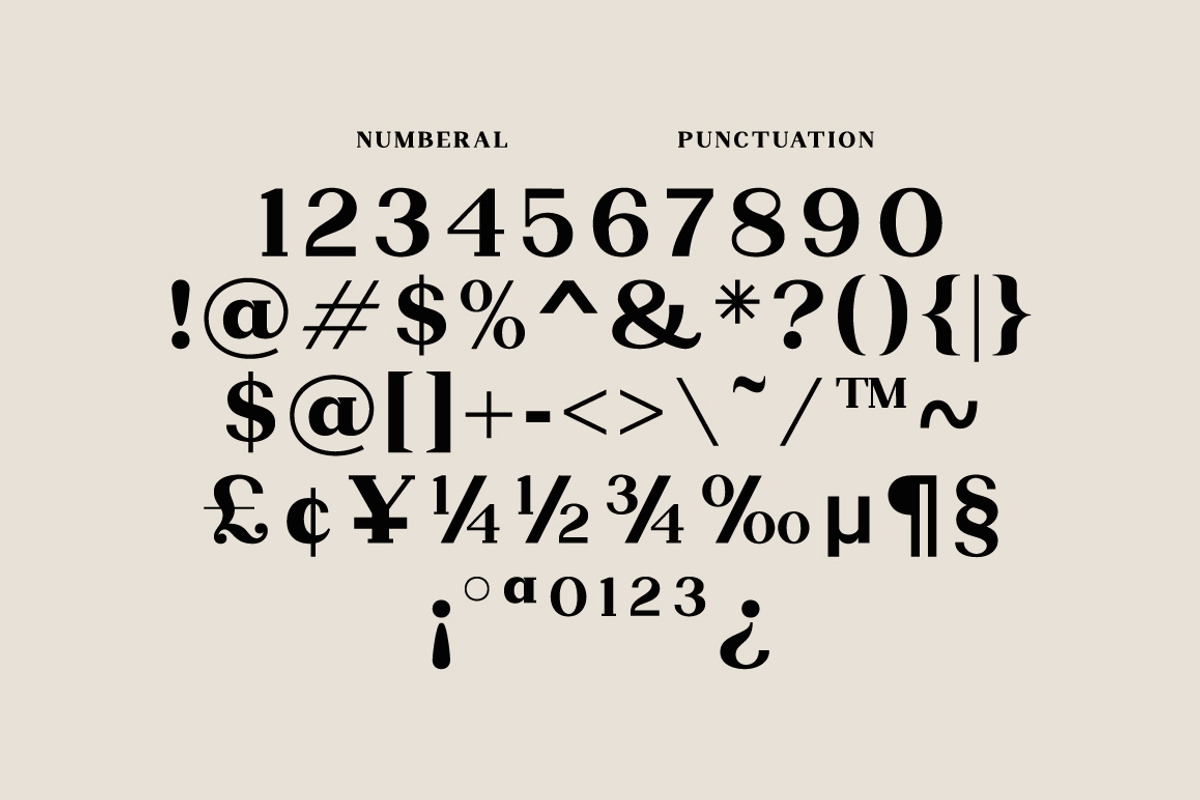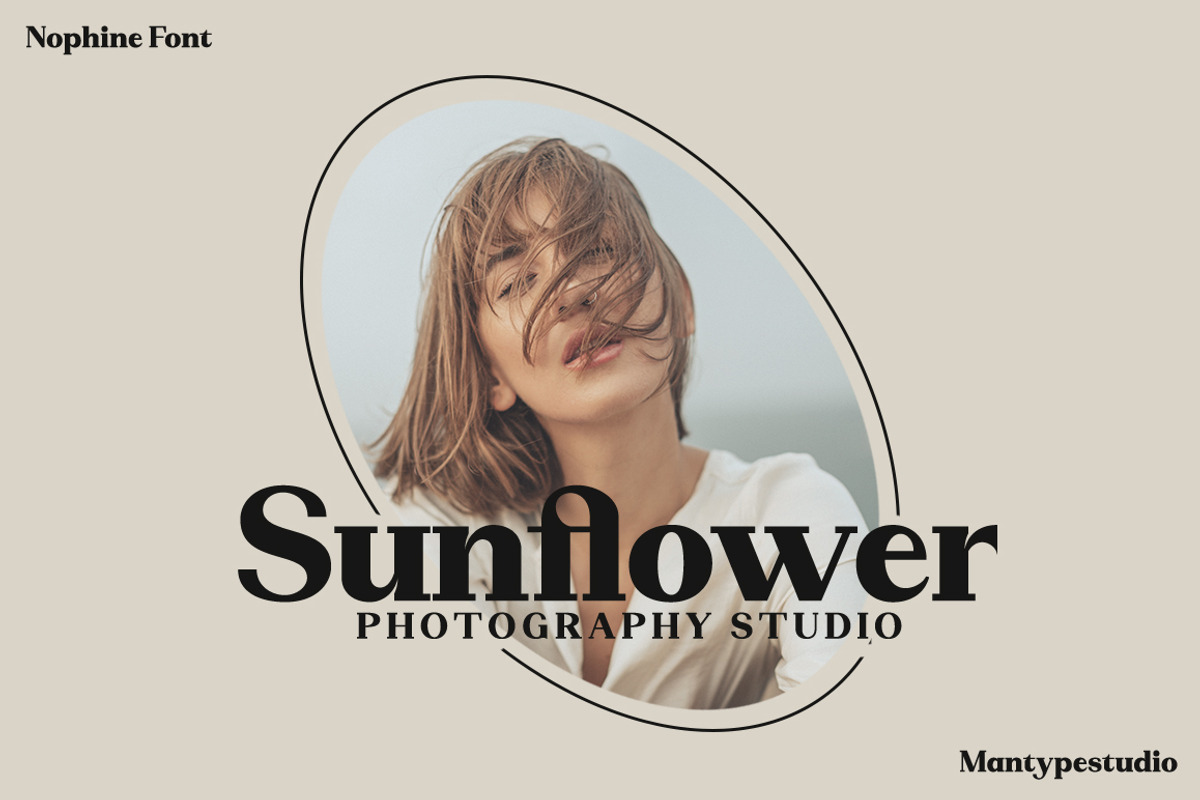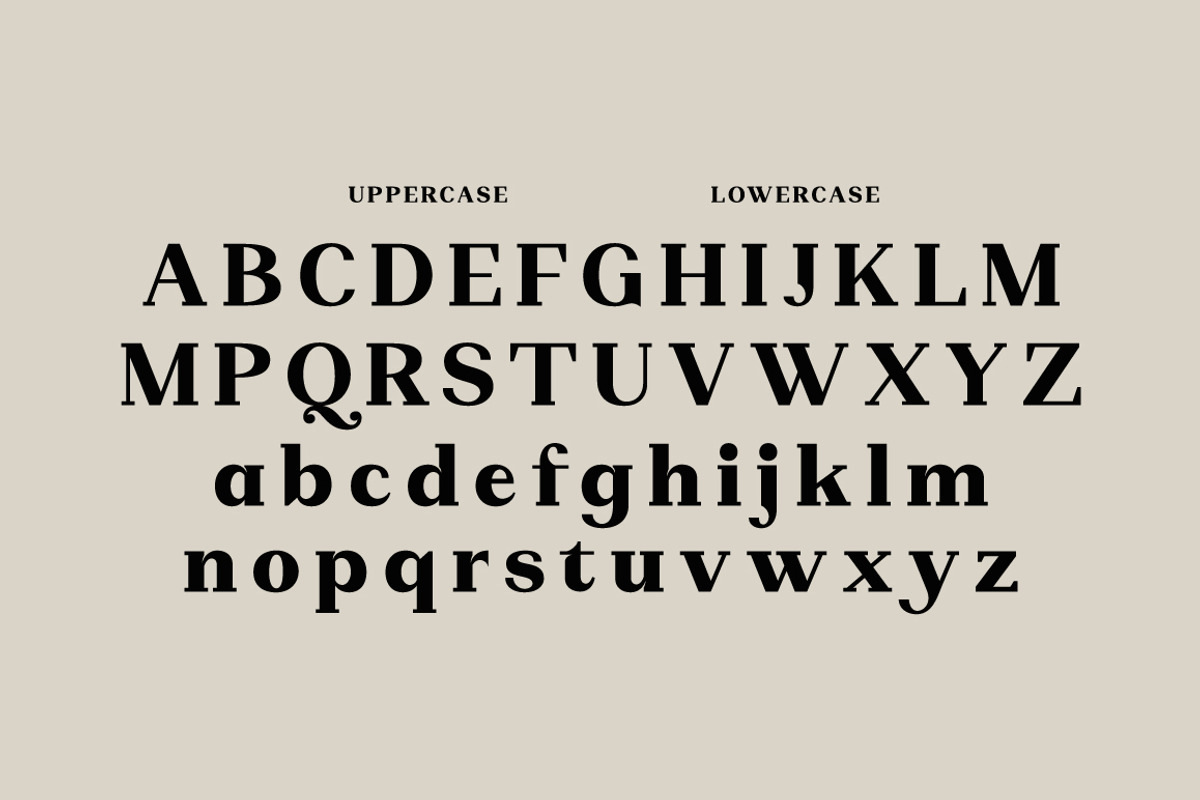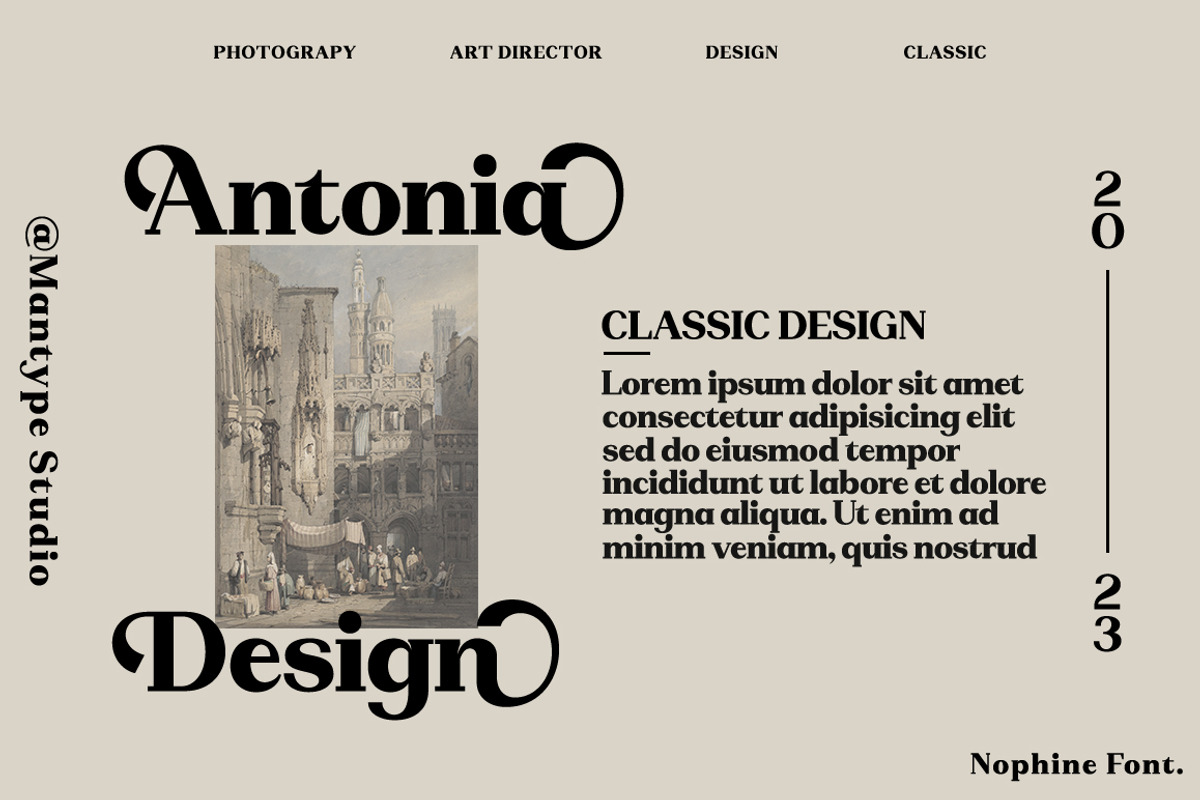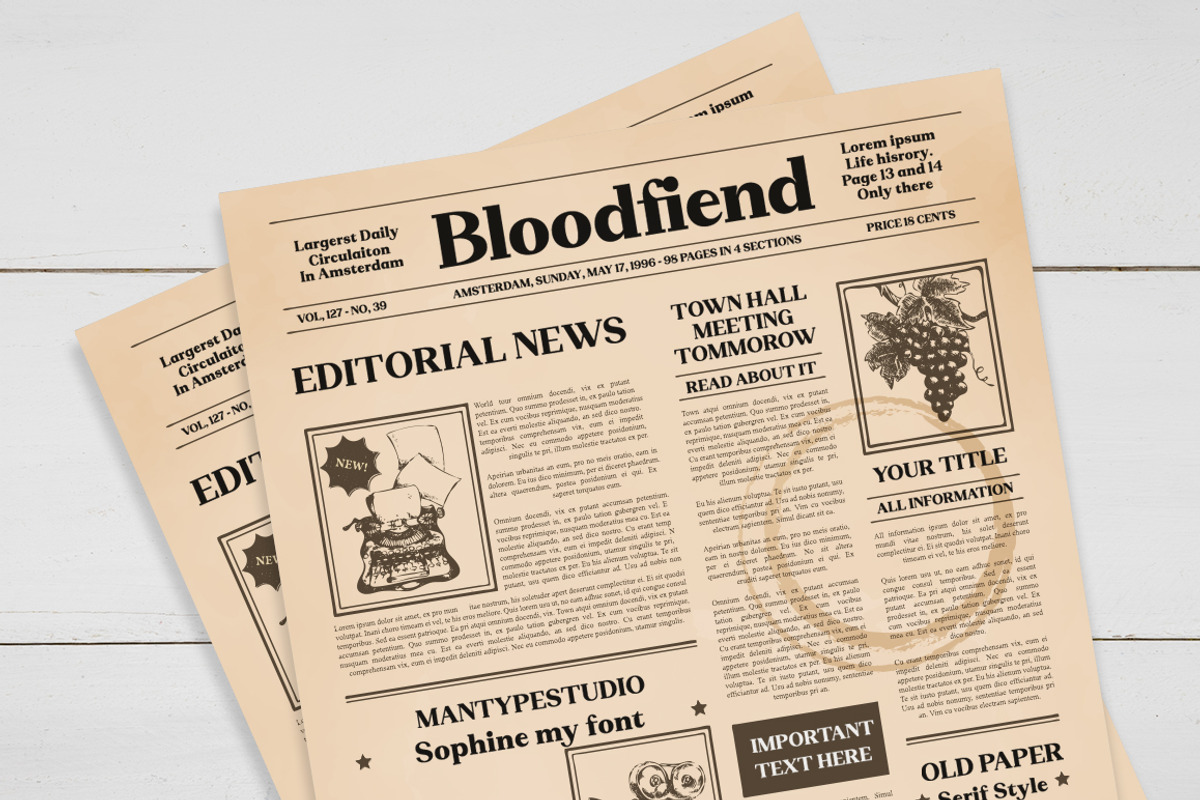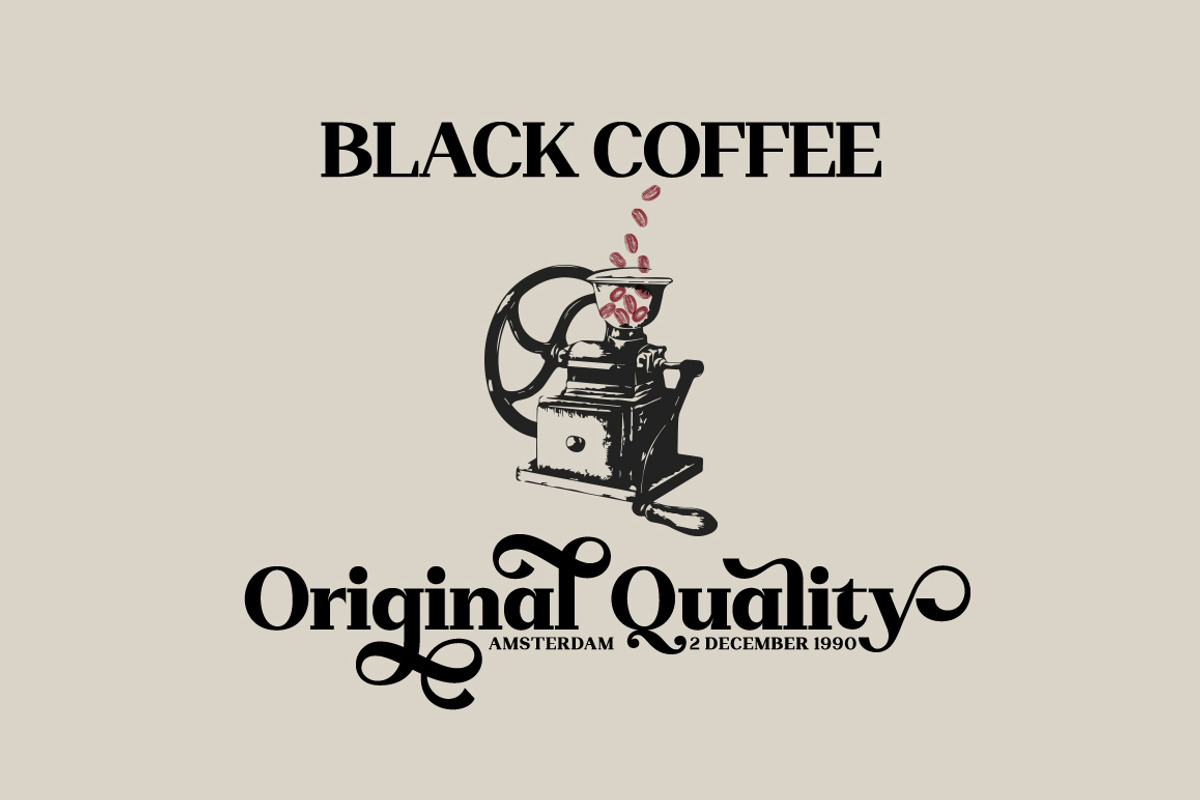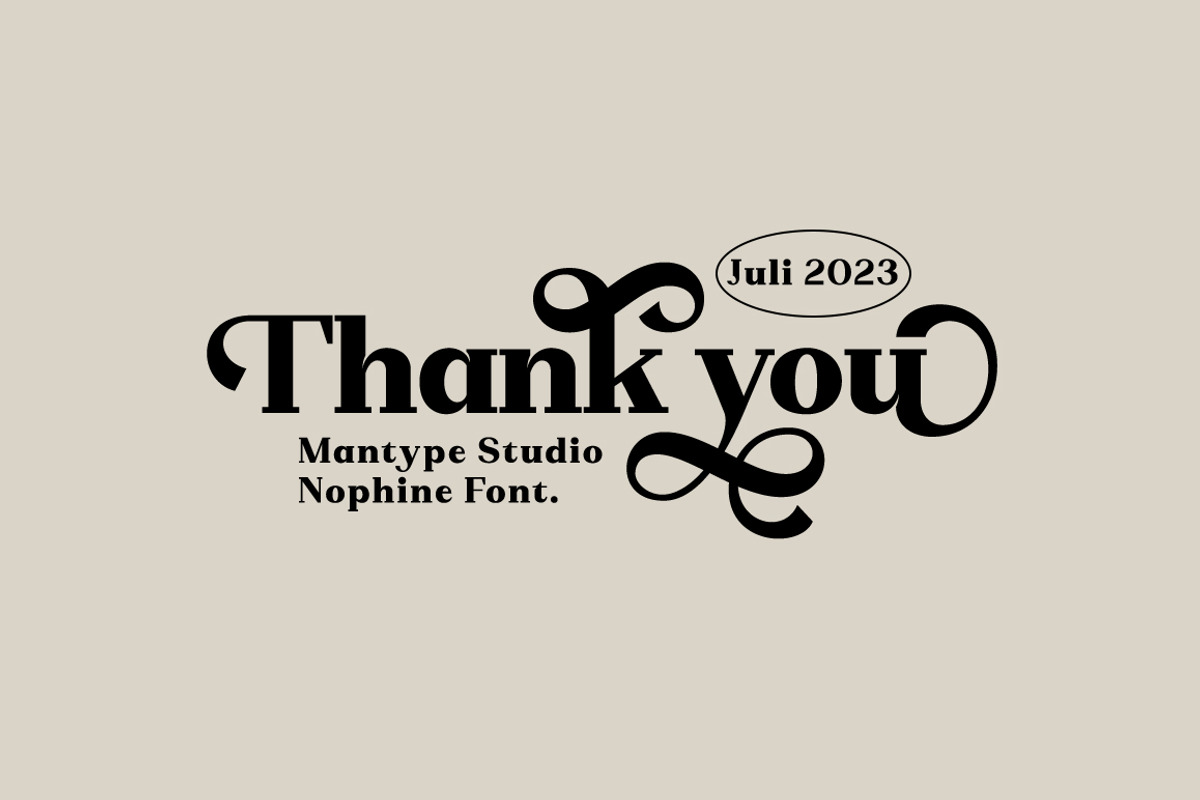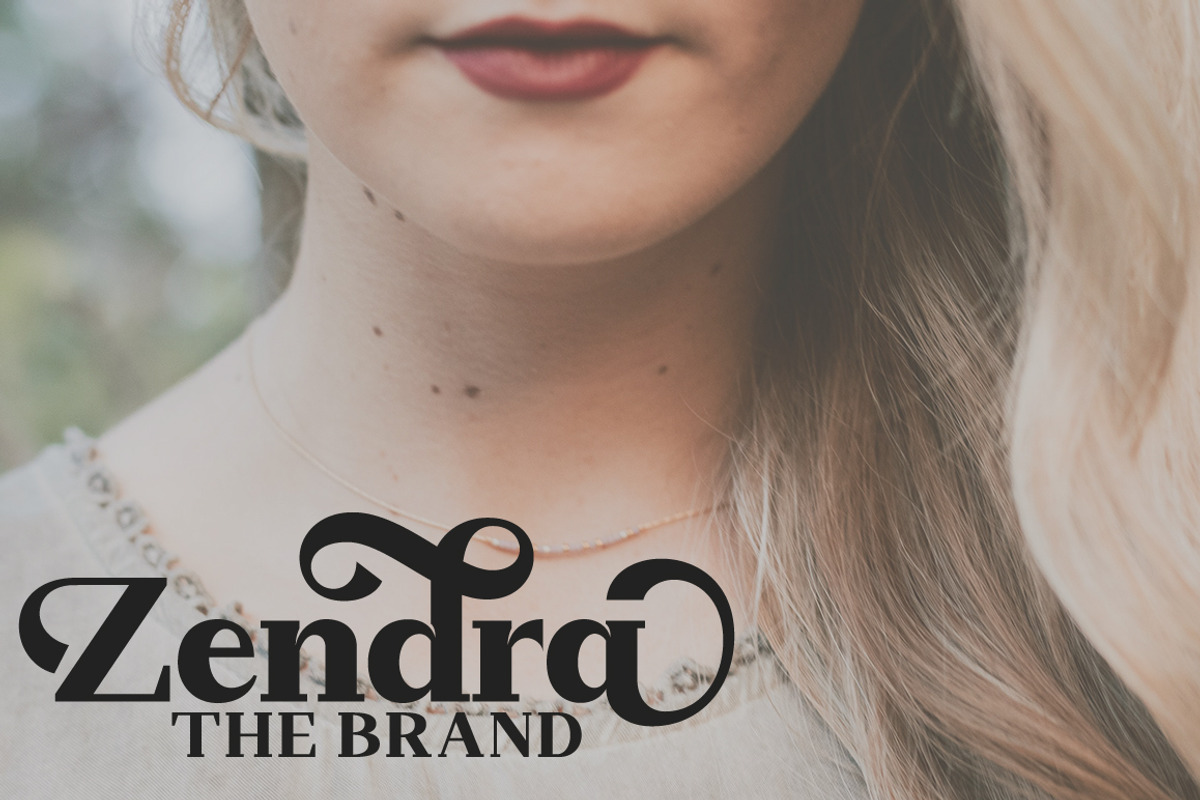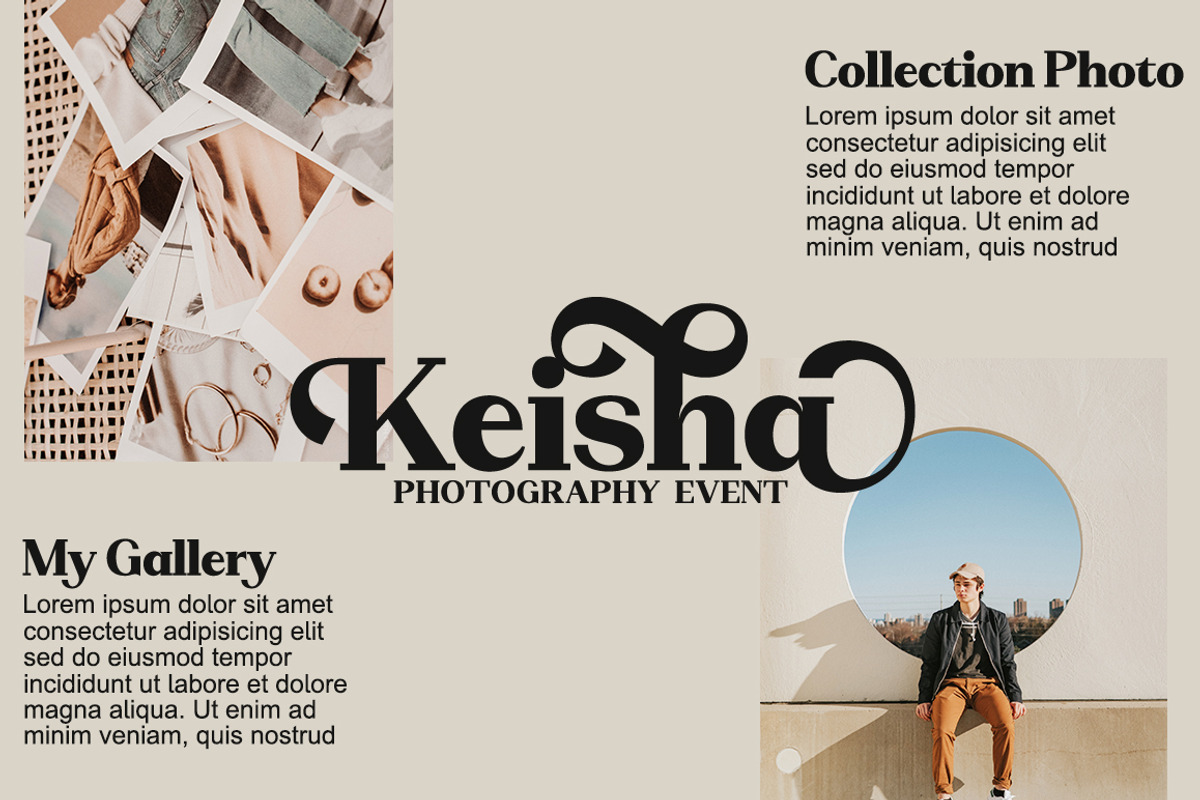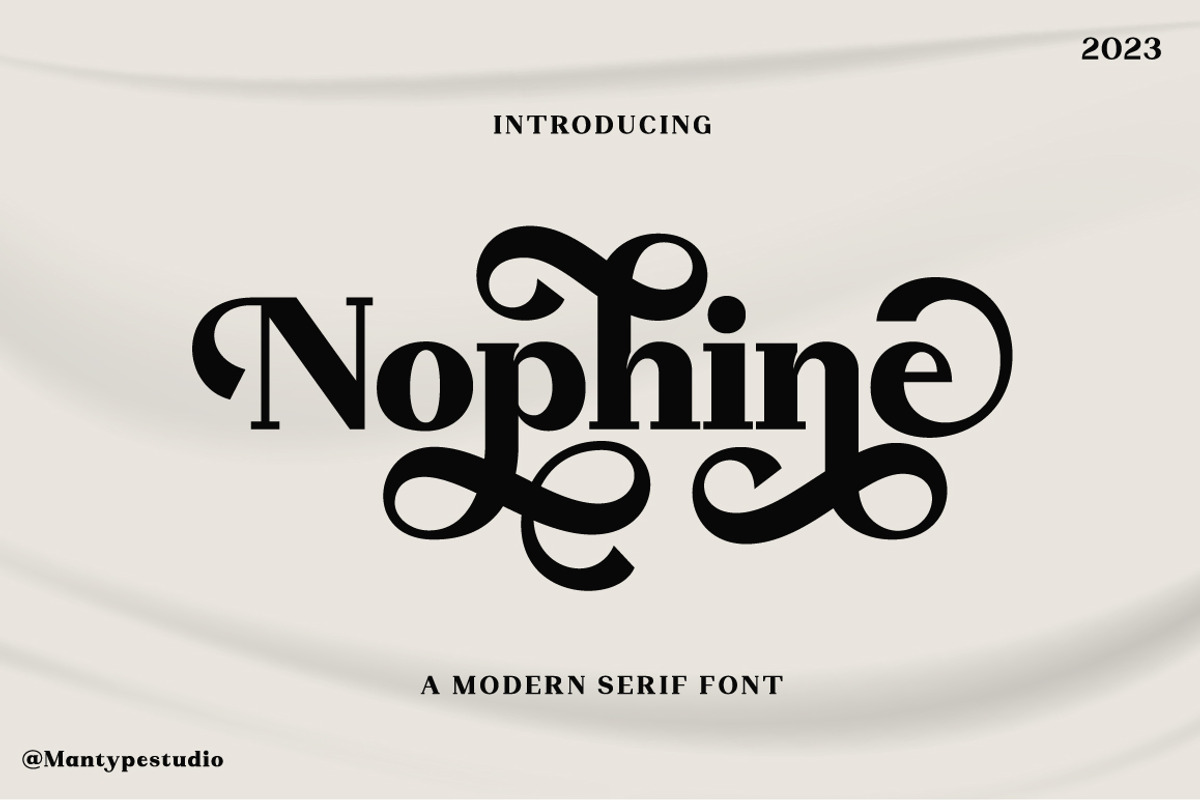
Nophine
Nophine is a typeface conceived by Sulai Man specifically for intensive editorial use, mainly in newspapers, magazines, and online, its personality and flexibility make it a true multipurpose typeface.
The intermediate weights deliver a neutral look when used in text sizes, providing the usual robustness expected in a newspaper font. The unobtrusive appearance, excellent texture, and slightly colour allow it to behave flawlessly in continuous text, even in the most unforgiving editorial applications. As it becomes larger in print,Nophine shows its personality through a series of measured particularities which make it easy to remember and identify. Its energetic character, becomes evident when used for subheadings and headlines.